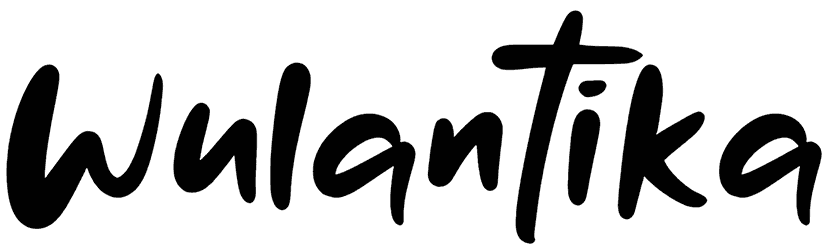
Wulantika Font
We strongly offer you to add Wulantika, a magical script font that comes with curved and oblique characters to your graphic content such as posters, flyers, illustrations, stickers, and product packaging.
This artwork has the real potential to bring your creative ideas to a higher level and help them to spark alongside their counterparts. Needless to say that due to its unique style, it carries a sense of coolness, personalization, drama, and dynamic.